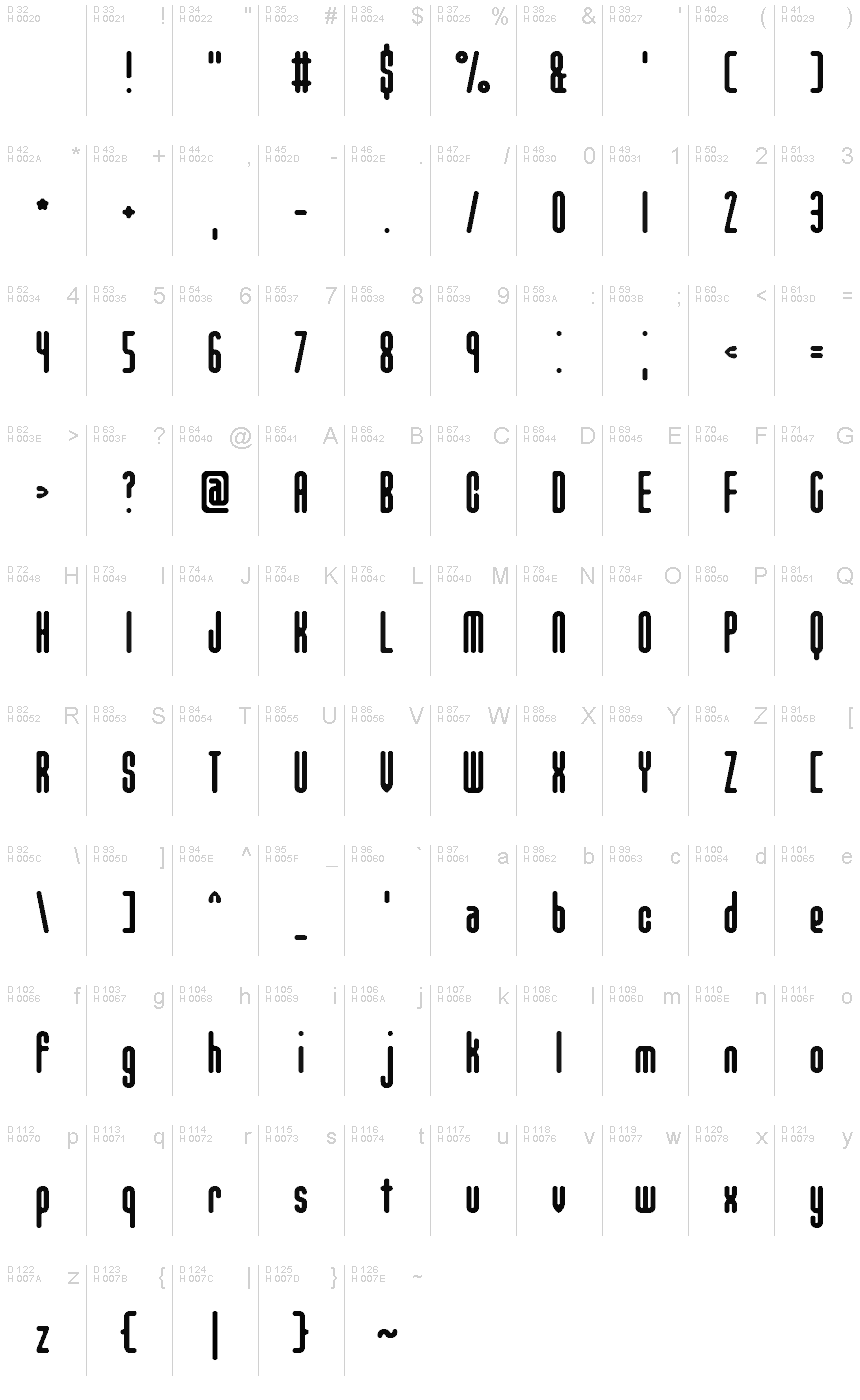
Unanimous Inverted BRK
Unanimous Inverted BRK is a font that immediately commands attention with its distinctive techno style and extra-condensed width. Crafted by ÆNIGMA FONTS, this member of the Unanimous family boasts bold lines and a modern flair that sets it apart from more traditional typefaces.
Its sharply defined edges and compact letterform structure give it an aesthetic edge, making it ideal for projects that require a touch of futuristic sophistication. Whether gracing the headers of an avant-garde magazine or serving as the central visual theme for branding materials, Unanimous Inverted BRK offers designers a versatile tool for creating striking visuals.
The font's clean geometry not only resonates with high-tech contexts but also holds potential for minimalist design schemes where clarity and impact are paramount. Its assertive presence can enhance everything from event posters to digital interfaces, proving that Unanimous Inverted BRK is not just another display font—it's a pivotal asset to any creative collection seeking to make an unmistakable statement.